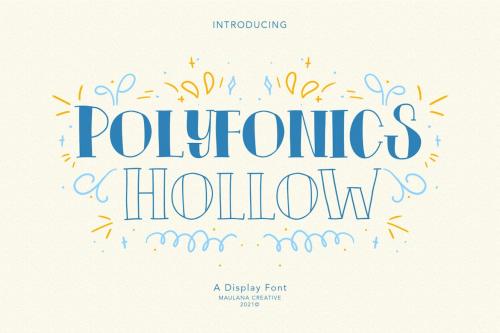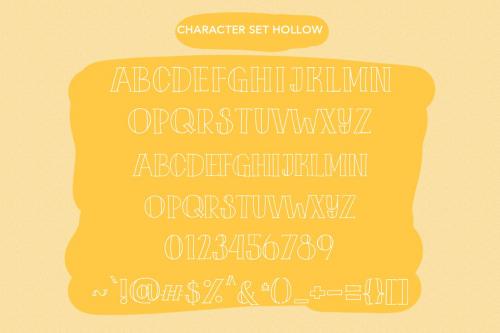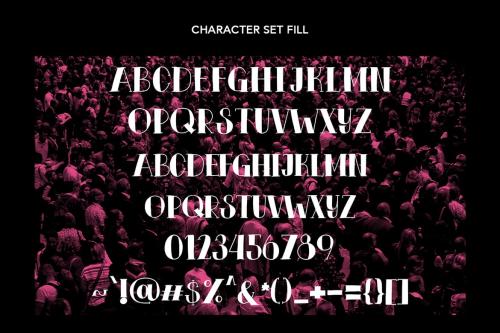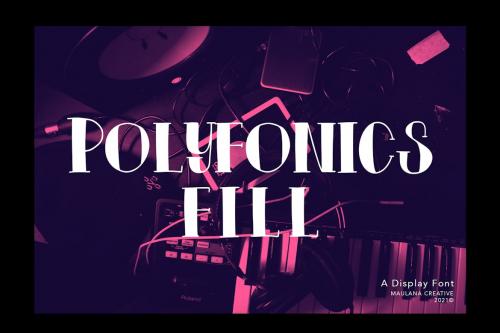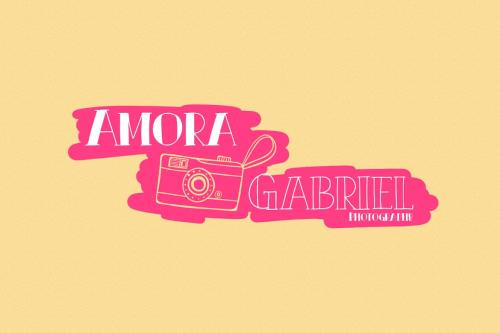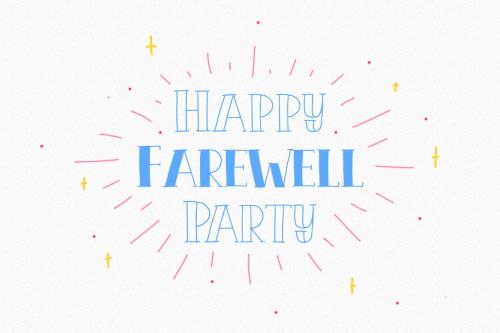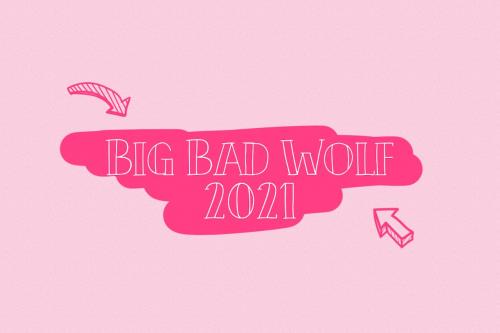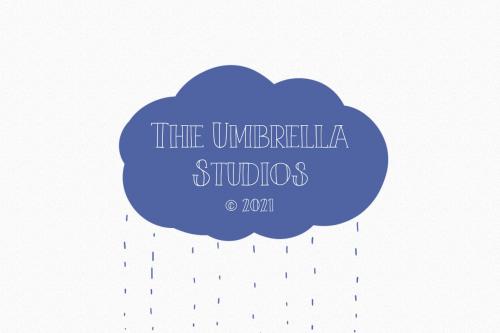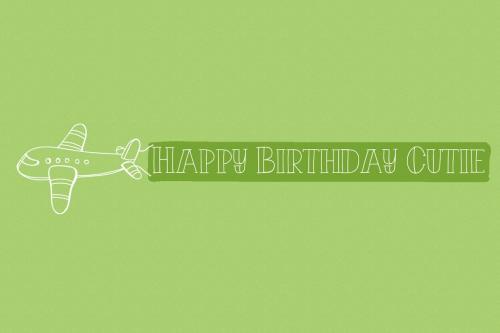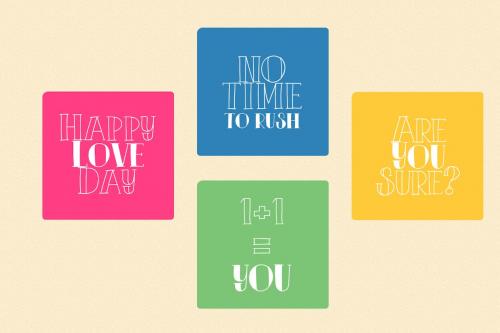
polyfonics display font
Polyfonics Display Font
Polyfonics is a natural hand drawn decorative display font, with fill and hollow stroke, uprights and fun character. To give you an extra creative work. Polyfonics font support multilingual more than 100+ language. This font is good for logo design, Social media, Movie Titles, Books Titles, a short text even a long text letter and good for your secondary text font with sans or serif. Make a stunning work with Polyfonics font.